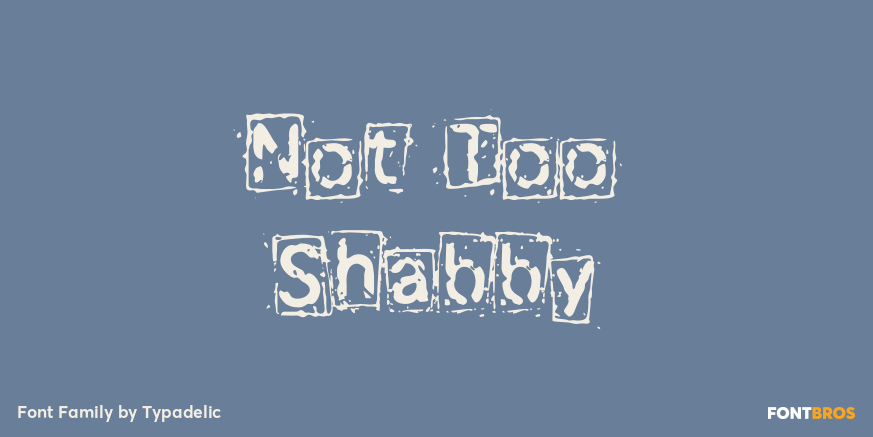
Not Too Shabby
Not Too Shabby comes boxed or not. The boxed letters are meant for titling and display purposes whereas the plain version is excellent where you want a rough, unrefined look. Not Too Shabby Plain can be used in large blocks of text very effectively.